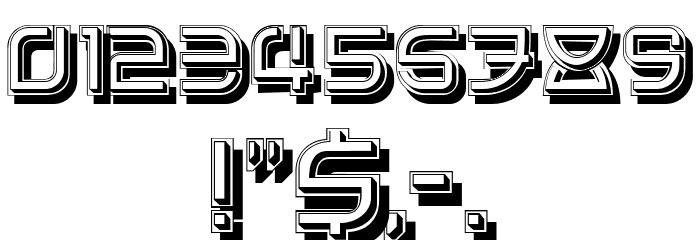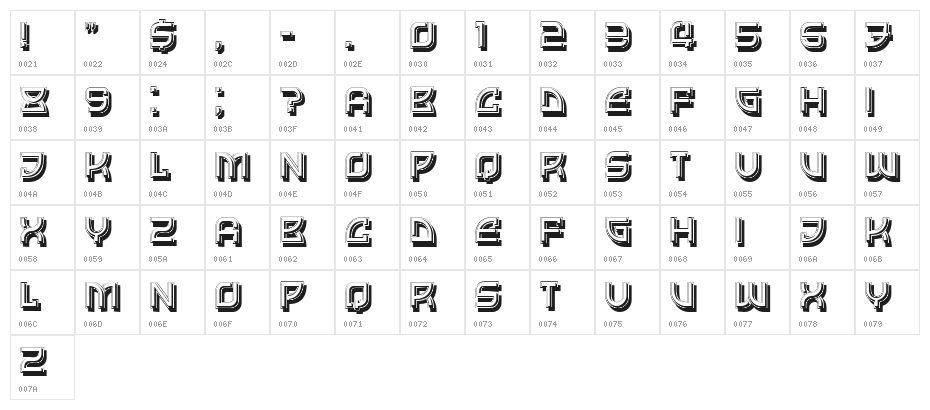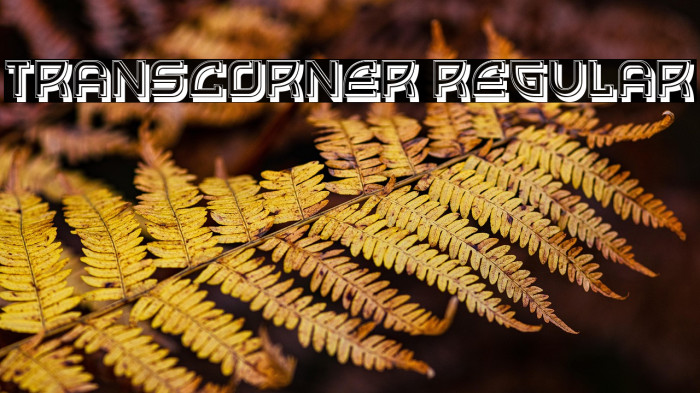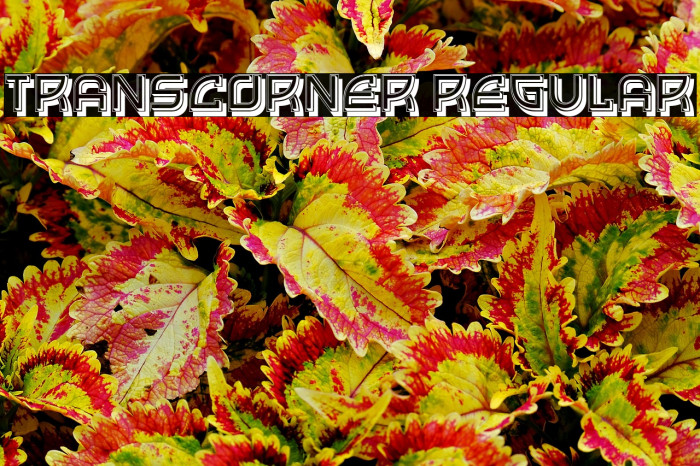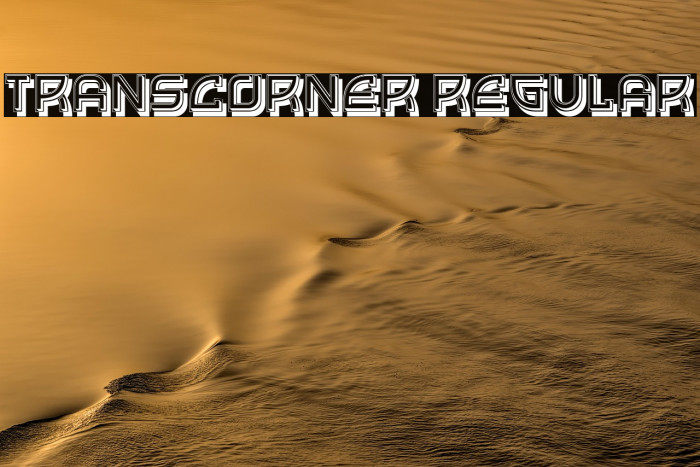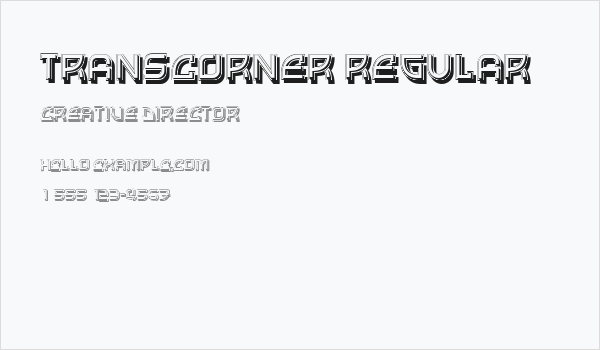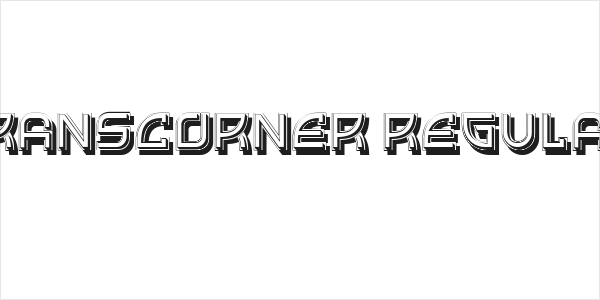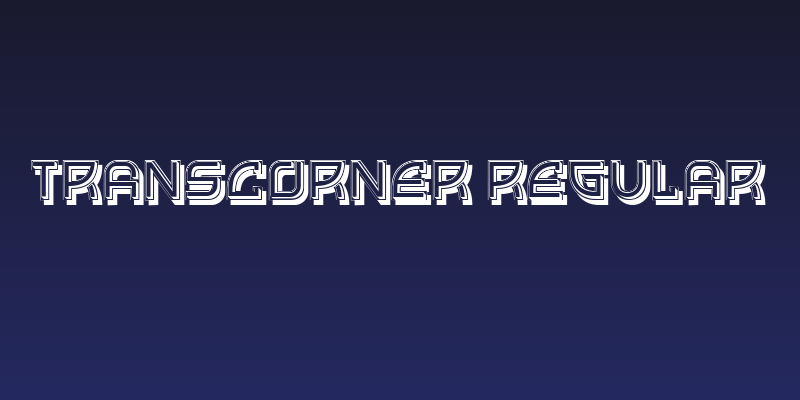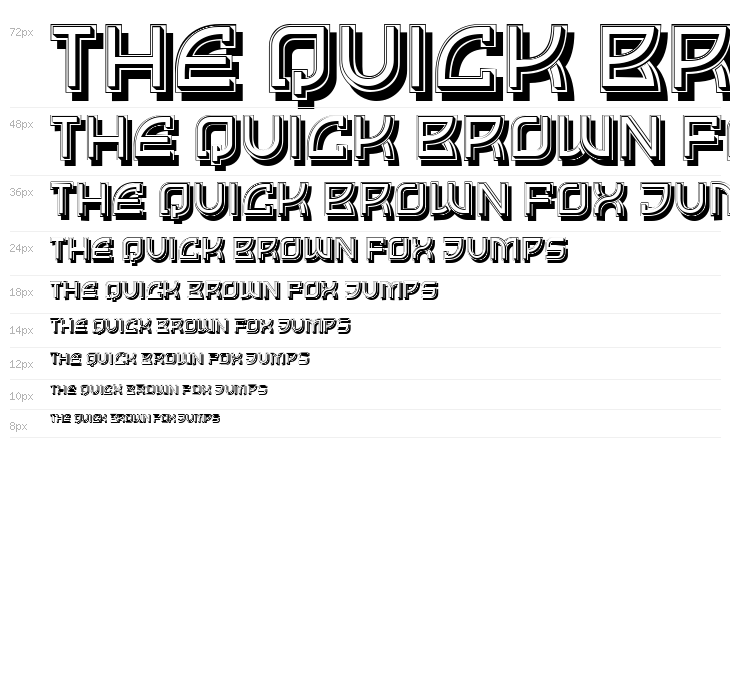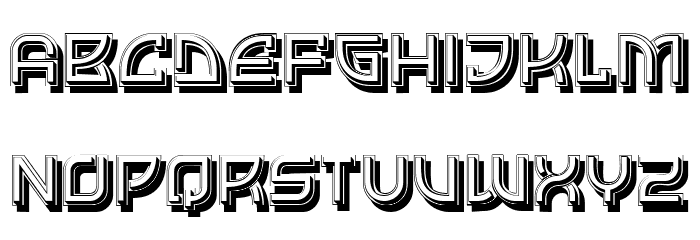
Transcorner Regular Font
Transcorner Regular Description
This font features a bold, geometric style with a three-dimensional effect. Each character is outlined with a thick border, creating a layered appearance that adds depth and visual interest. The design is highly stylized, with angular lines and sharp corners that give it a futuristic and dynamic feel. The uppercase and lowercase letters maintain a consistent width, while the numbers and special characters follow the same bold and structured aesthetic. The font's unique style makes it stand out, making it ideal for eye-catching designs.
| Overall Style | Modern, Futuristic |
| Proposed Projects | Ideal for posters, logos, video game graphics, and any project needing a futuristic or dynamic look. |